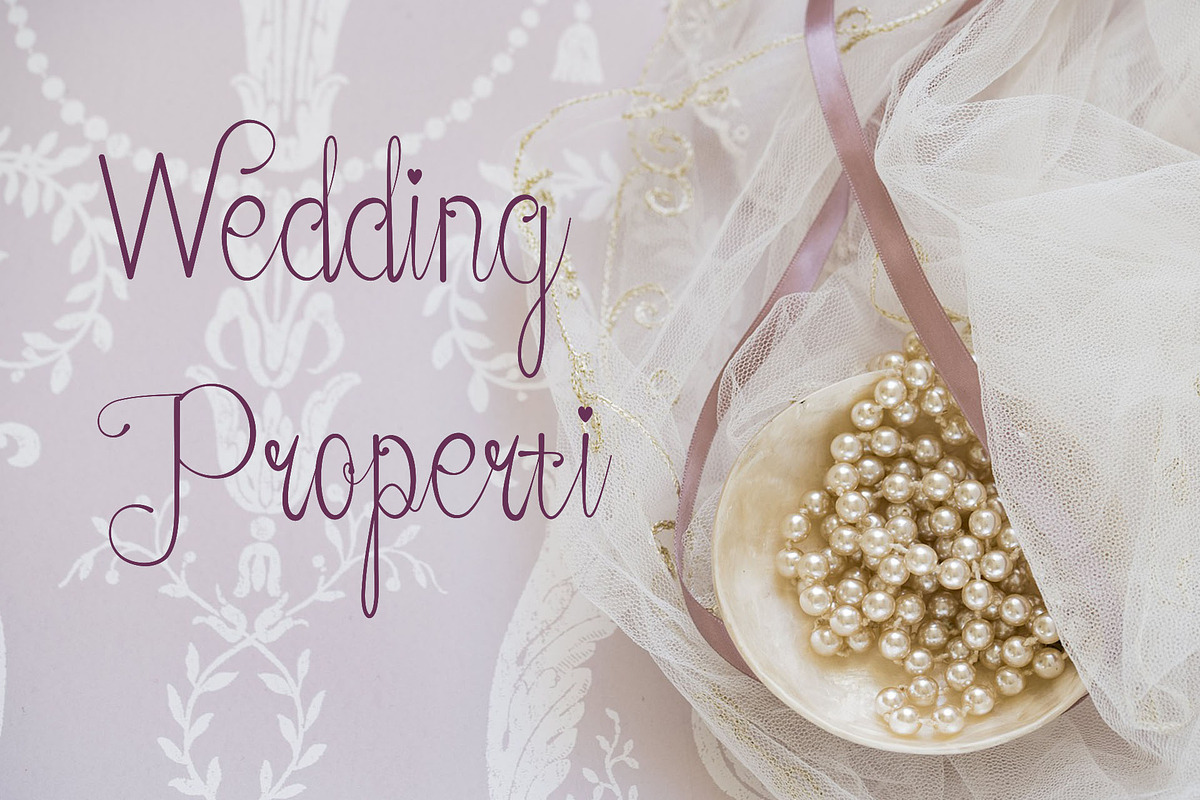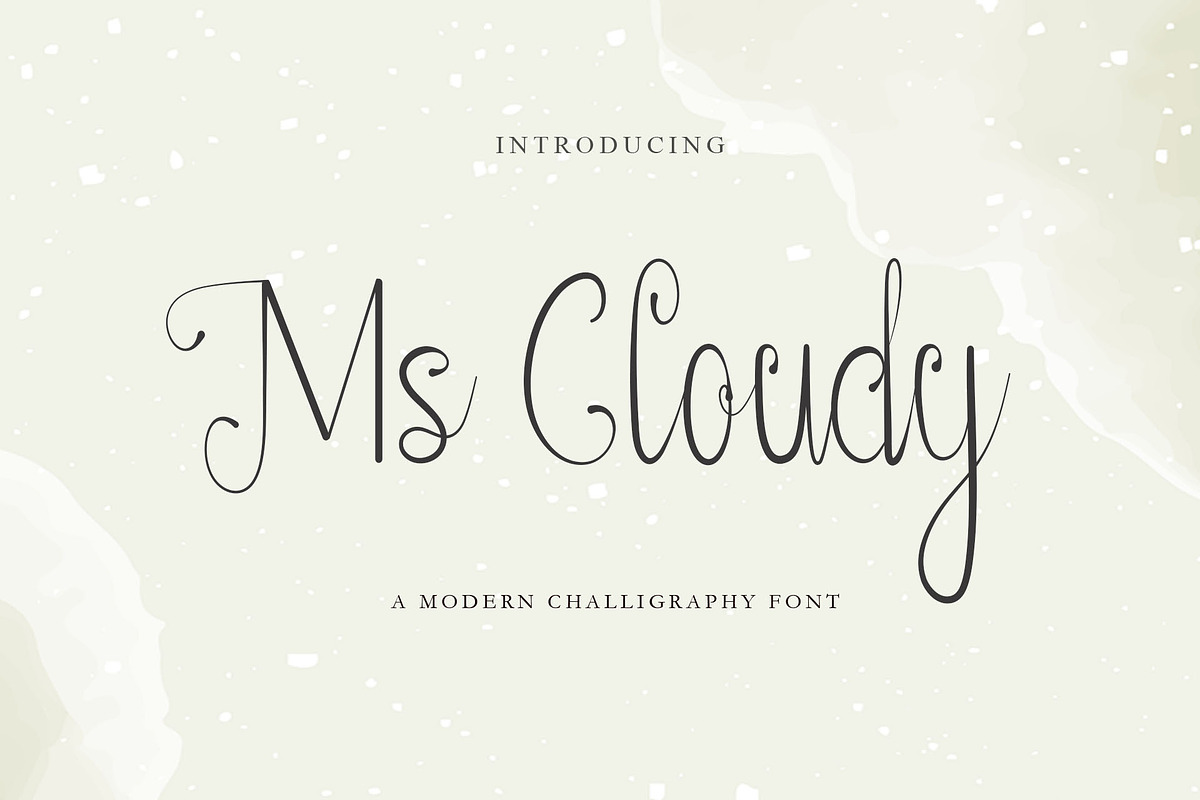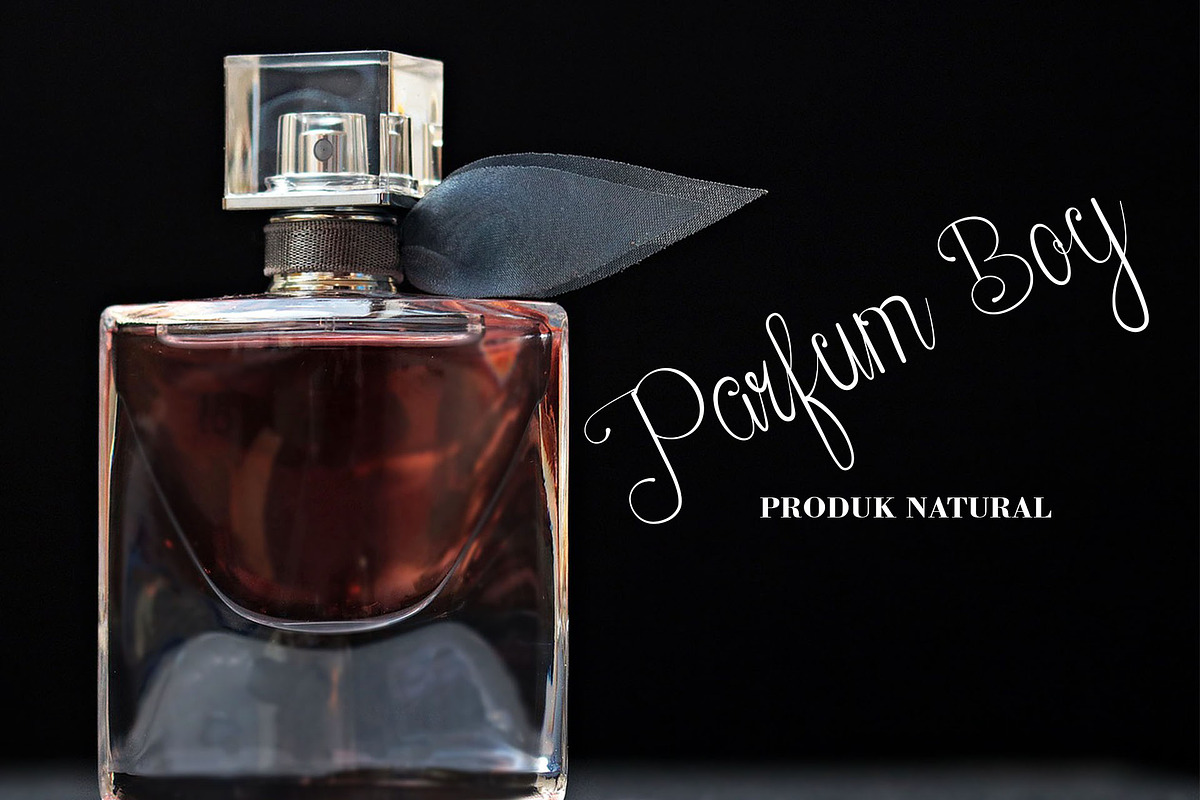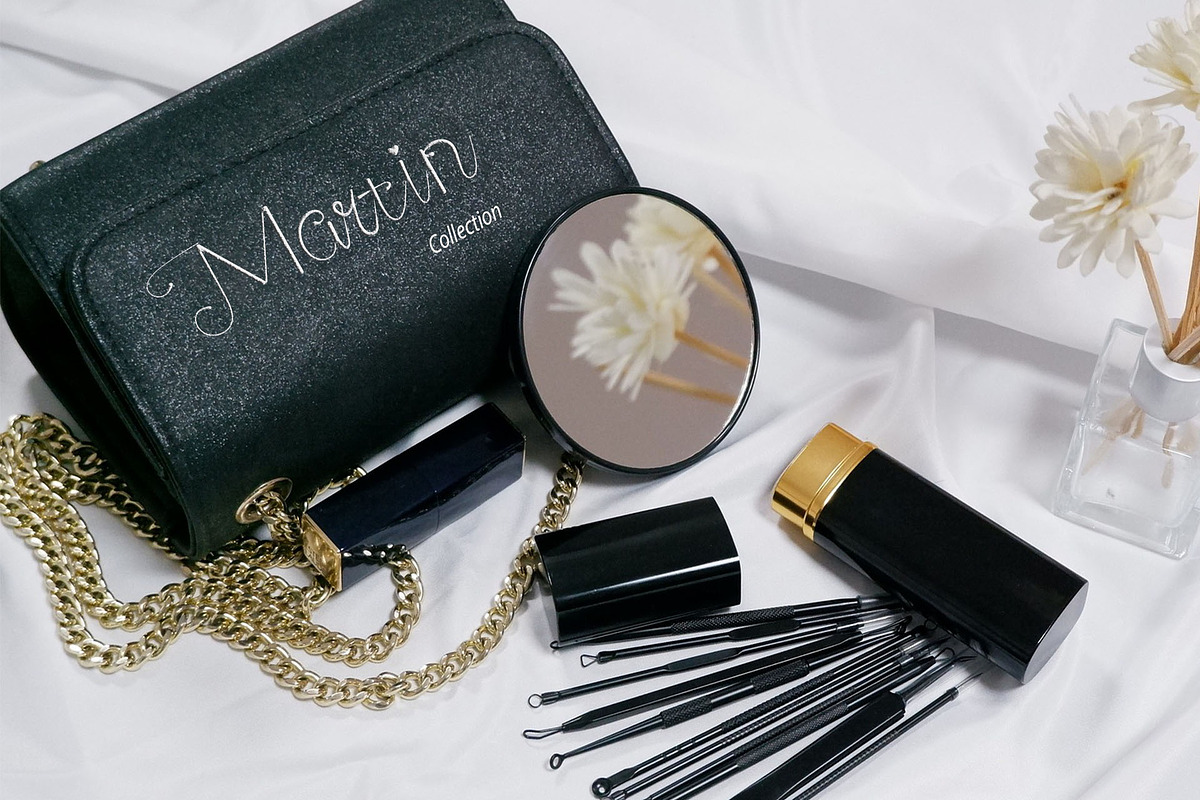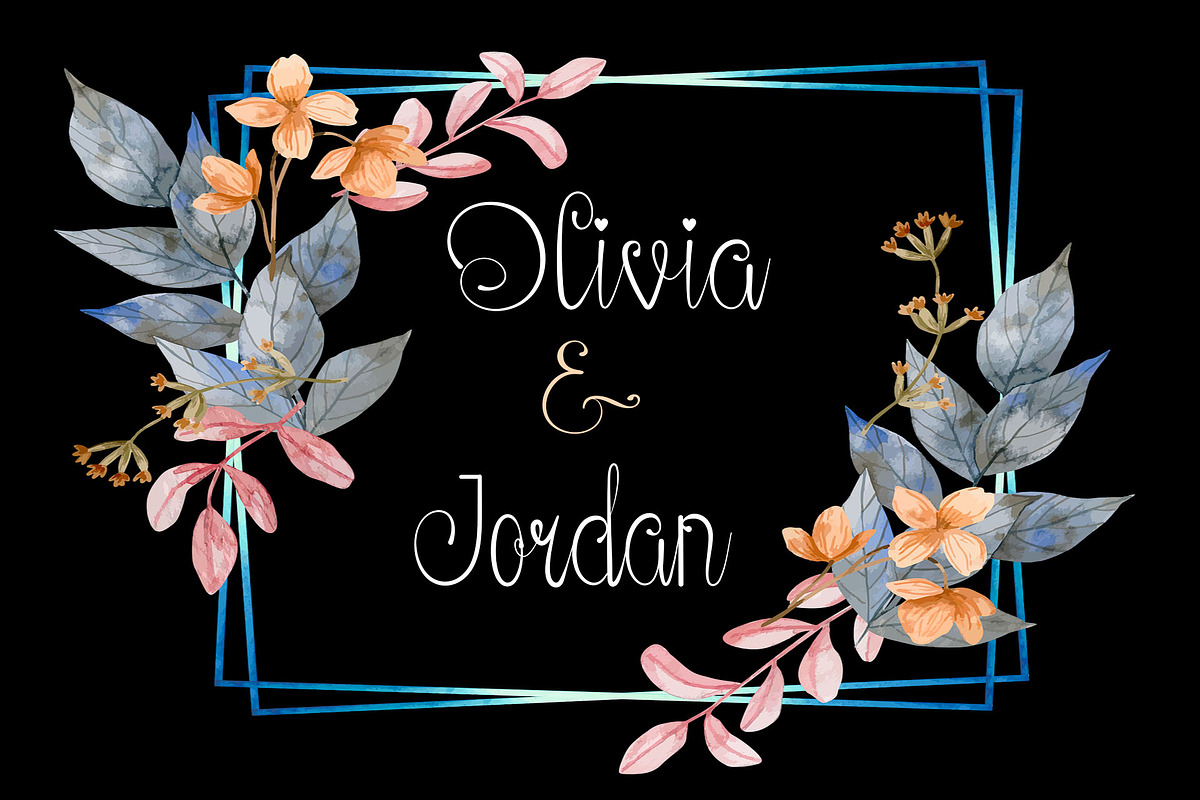
Ms Cloudy | Modern Calligraphy Scrip
Ms Claudy is a delicate, elegant and flowing handwritten font. It has beautiful and well balanced characters and as a result, it matches a wide pool of designs. Add it to your most creative ideas and notice how it makes them come alive!